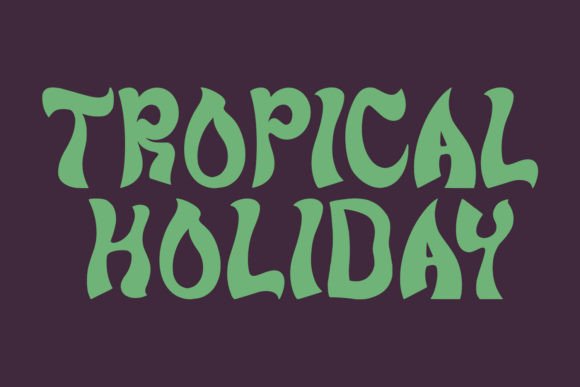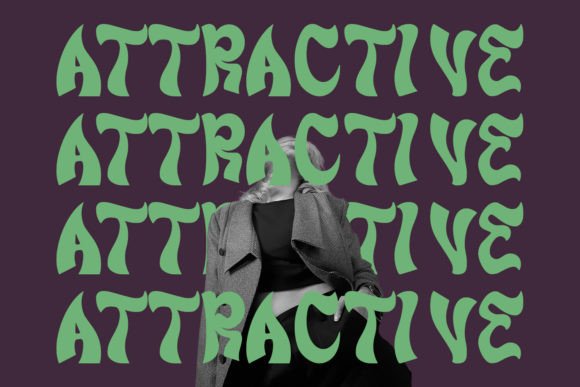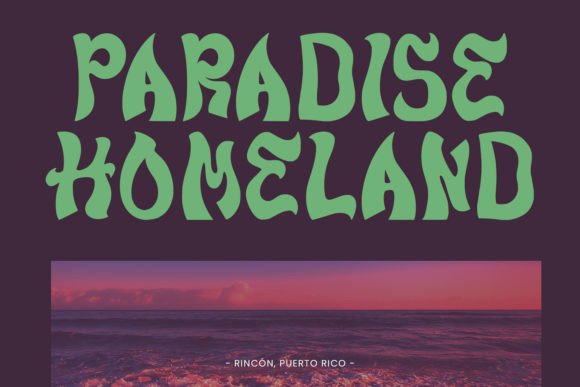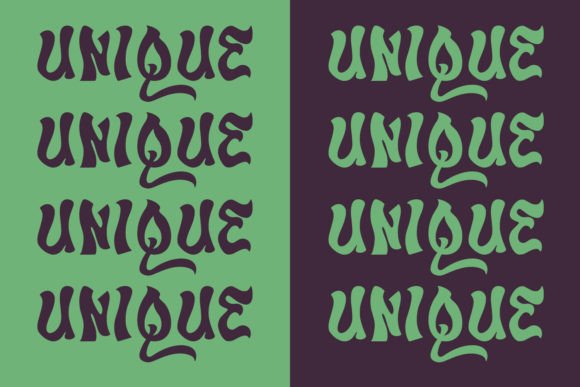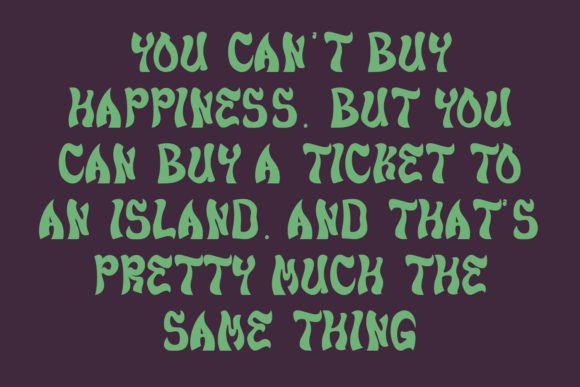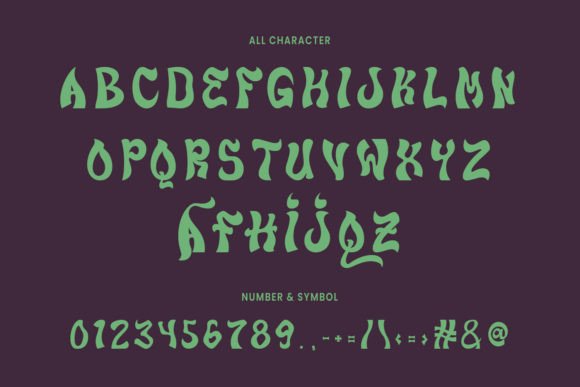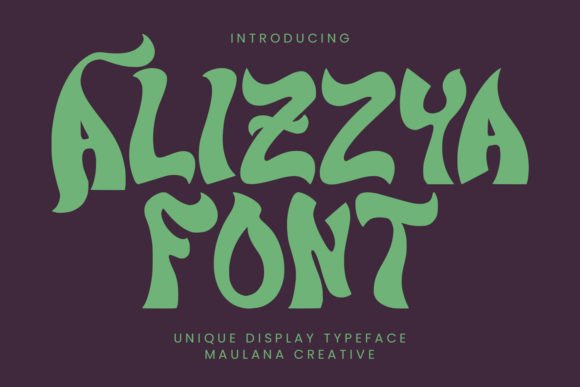
Meet Alizzya: The Wavy Display Font That Brings Playfulness to Your Designs
In the world of typography, fonts play a crucial role in setting the tone and aesthetic of a design project. For designers and crafters looking to add a touch of whimsy and dynamism to their work, the Alizzya font is an excellent choice. This wavy display font is designed to bring a playful and relaxed vibe to your designs, making it perfect for projects that demand a unique flair.
The Characteristics of Alizzya Font
Alizzya is a display font that boasts fluid and curvy letterforms, which give it a distinctive and eye-catching appearance. The wavy lines and smooth curves of this font add a sense of movement and energy to your text, making it ideal for designs that require a touch of creativity and playfulness. Whether you’re working on invitations, branding, or any other design project, Alizzya is sure to make a statement.
What Makes Alizzya Font Stand Out
So, what sets Alizzya apart from other fonts? Here are a few key features that make this font a standout:
• Unique letterforms: Alizzya’s fluid and curvy letterforms give it a distinctive appearance that’s sure to grab attention.
• Playful vibe: The wavy lines and smooth curves of this font add a sense of playfulness and whimsy to your designs.
• Dynamic movement: Alizzya’s fluid lines give the impression of movement, making it perfect for designs that require a sense of energy and dynamism.
• Relaxed aesthetic: Despite its playful vibe, Alizzya has a relaxed and stylish aesthetic that’s perfect for designs that require a touch of sophistication.
How to Use Alizzya Font in Your Design Projects
Alizzya is a versatile font that can be used in a variety of design projects, including:
• Invitations: Add a touch of whimsy and playfulness to your invitations with Alizzya’s wavy lines and curvy letterforms.
• Branding: Use Alizzya to create a unique and eye-catching brand identity that’s sure to stand out.
• Posters and flyers: Alizzya’s dynamic movement and playful vibe make it perfect for posters and flyers that require a touch of energy and creativity.
• Digital designs: Use Alizzya in your digital designs, such as social media graphics and website headers, to add a touch of playfulness and whimsy.
Tips for Pairing Alizzya Font with Other Fonts
When pairing Alizzya with other fonts, here are a few tips to keep in mind:
• Contrast with a serif font: Pair Alizzya with a serif font to create a striking contrast between the wavy lines of Alizzya and the traditional lines of the serif font.
• Match with a script font: Pair Alizzya with a script font to create a cohesive and playful look that’s perfect for designs that require a touch of whimsy.
• Use with a bold font: Pair Alizzya with a bold font to create a striking contrast between the light, airy lines of Alizzya and the bold, heavy lines of the other font.
In conclusion, Alizzya is a unique and versatile font that’s perfect for designers and crafters looking to add a touch of playfulness and whimsy to their designs. With its fluid and curvy letterforms, Alizzya adds a sense of movement and energy to your text, making it ideal for projects that demand a touch of creativity and a relaxed, yet stylish aesthetic. Whether you’re working on invitations, branding, or any other design project, Alizzya is the perfect choice to infuse your work with a wave of character and charm.